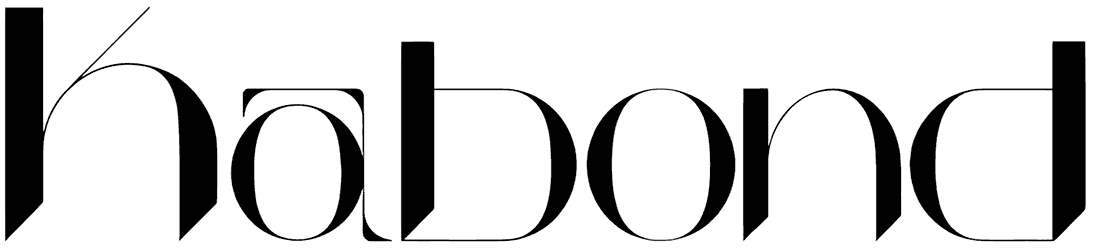
Kabond Font
Designed byNicolas Silvain
While standing out alongside thousands of high-end graphic content is getting harder every day, a magical fashion font such as Kabond would be really helpful and makes your creative ideas including posters, brochures, branding, logos, or social media posts look shining among all their counterparts.
Its characters are a blend of elegance and contradiction, so this artwork easily grabs the attention of the audience by sharing a sense of uniqueness, drama, mystery, or exoticism with them.